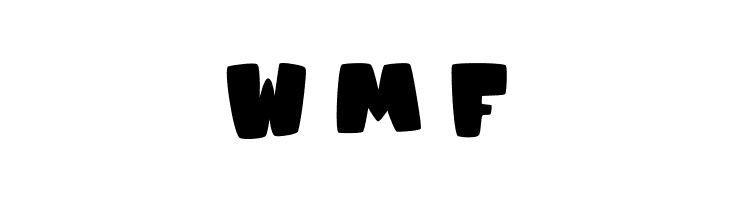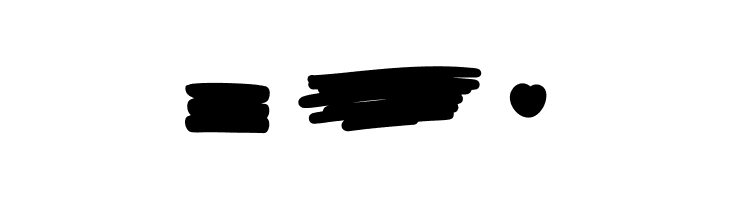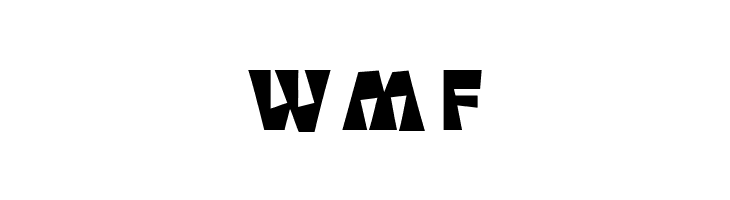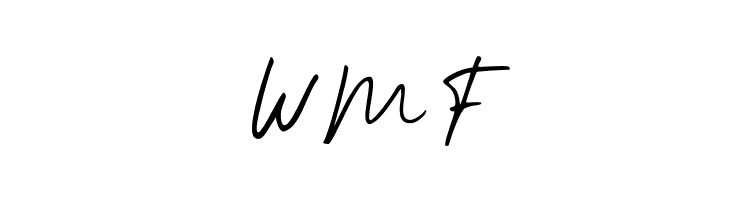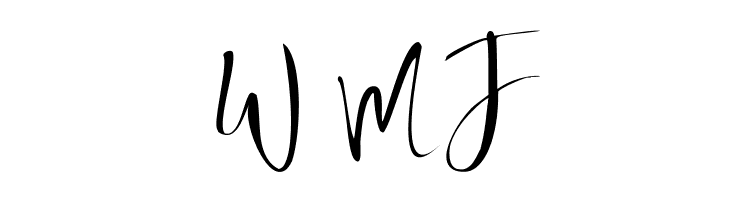
( Fonts by Tri Sakti Oktaviano )
A bold, playful font with a bubbly, organic design.
A lively and expressive script font with fluid, interconnected strokes.
An elegant, flowing script font with smooth, continuous strokes.
A bold, dynamic font with brush-like strokes and a playful style.
( Fonts by Tri Sakti Oktaviano )
A bold, playful font with rounded, bubbly characters and a whimsical style.
( Fonts by Tri Sakti Oktaviano )
A bold, playful font with a retro, whimsical style.
A whimsical, cursive font with elegant loops and decorative flourishes.
( Fonts by Ikiiko Type )
A bold, playful font with rounded, bubbly characters and a retro vibe.
( Fonts by Tri Sakti Oktaviano )
A bold, playful font with thick, rounded characters and high contrast.
( Fonts by Tri Sakti Oktaviano )
A bold, playful font with rounded, bubbly characters and minimal contrast.
A decorative font with floral elements integrated into uppercase letters.
( Fonts by Adien Gunarta - fontasticindonesia.blogspot.com )
A playful and whimsical font with hand-drawn, irregular letterforms.
( bumbayo.blogspot.com/ )
A playful, hand-drawn font with elongated, irregular characters.
( Sandra Sisofo )
A collection of protest posters with bold, expressive typography and imagery.
( Fonts by Giart Studios )
A bold, italic, and modern font with sleek, rounded characters.
( Fonts by aannasou )
A playful, bold font with rounded, bubbly letterforms and a retro vibe.
( Fonts by IHD )
A bold, decorative font with swirling embellishments and a strong visual impact.
( Fonts by Chris Vile )
A distressed, grungy font with a rugged, textured appearance.
( Fonts by Chris Vile )
A bold, distressed font with a grunge, urban aesthetic.
An elegant cursive font with fluid, connected strokes and a refined appearance.
( Fonts by Wasabib Studio )
A playful, bold font with rounded, bubbly characters ideal for retro-themed projects.
( Bicho - Federico Abrahams )
A bold, ultra-wide font with geometric shapes and a futuristic feel.
( www.woodcutter.es )
A bold, distressed font with a rugged, grunge aesthetic.
Bold, jagged display font with a horror or grunge vibe.
A bold, distressed font with a grunge aesthetic.
A bold, elegant script font with interconnected, flowing characters.
( Fonts by Eko Bimantara )
A bold, bubbly decorative font with rounded, playful shapes.
( Fonts by junkohanhero )
A bold, distressed font with a hand-drawn, textured style.
A bold, dynamic brush script font with fluid, interconnected strokes.
( Fonts by 177Studio )
A bold, decorative font with playful swirls and curves, perfect for creative projects.
( Fonts by Szymon Furjan )
A bold, geometric font with angular, blocky letterforms and a modern-retro vibe.
( Fonts by Dhabee Studio )
Bold, quirky display font with playful irregular shapes.
( Fonts by Four Lines )
A bold, playful font with rounded edges and a whimsical style.
A playful, bold script font with a handwritten style.